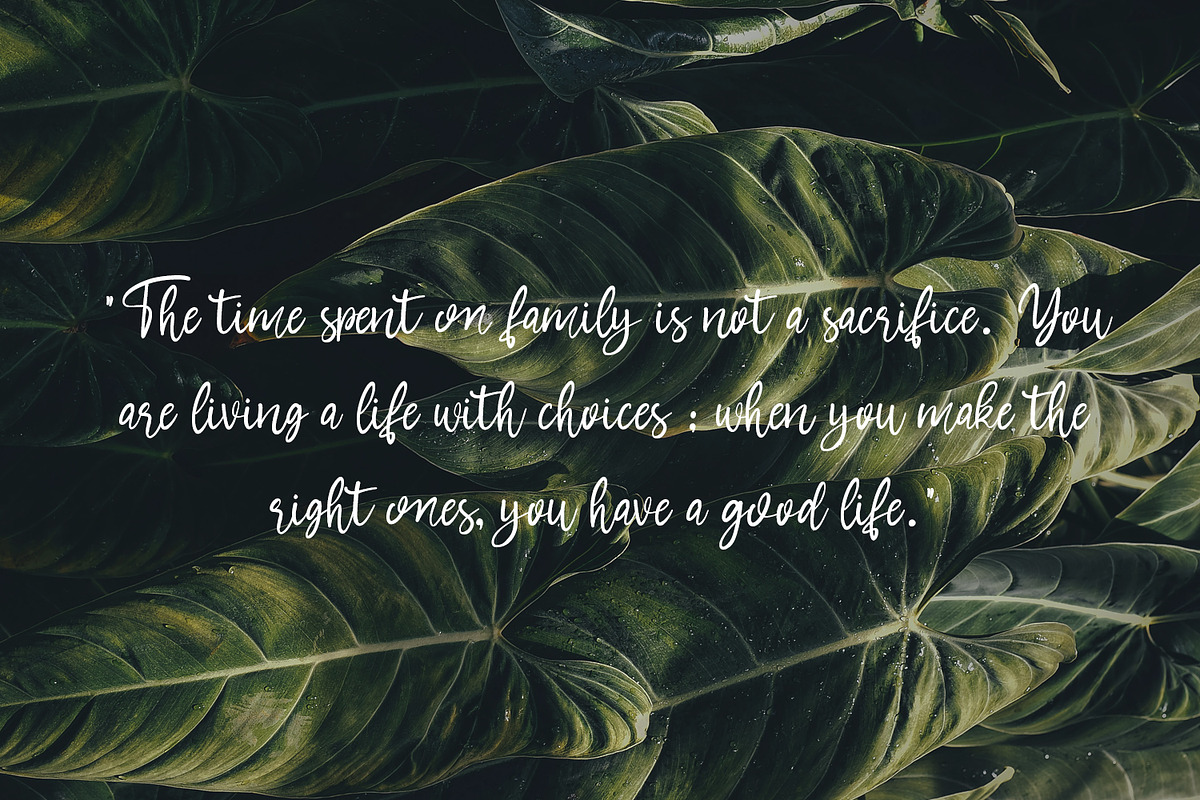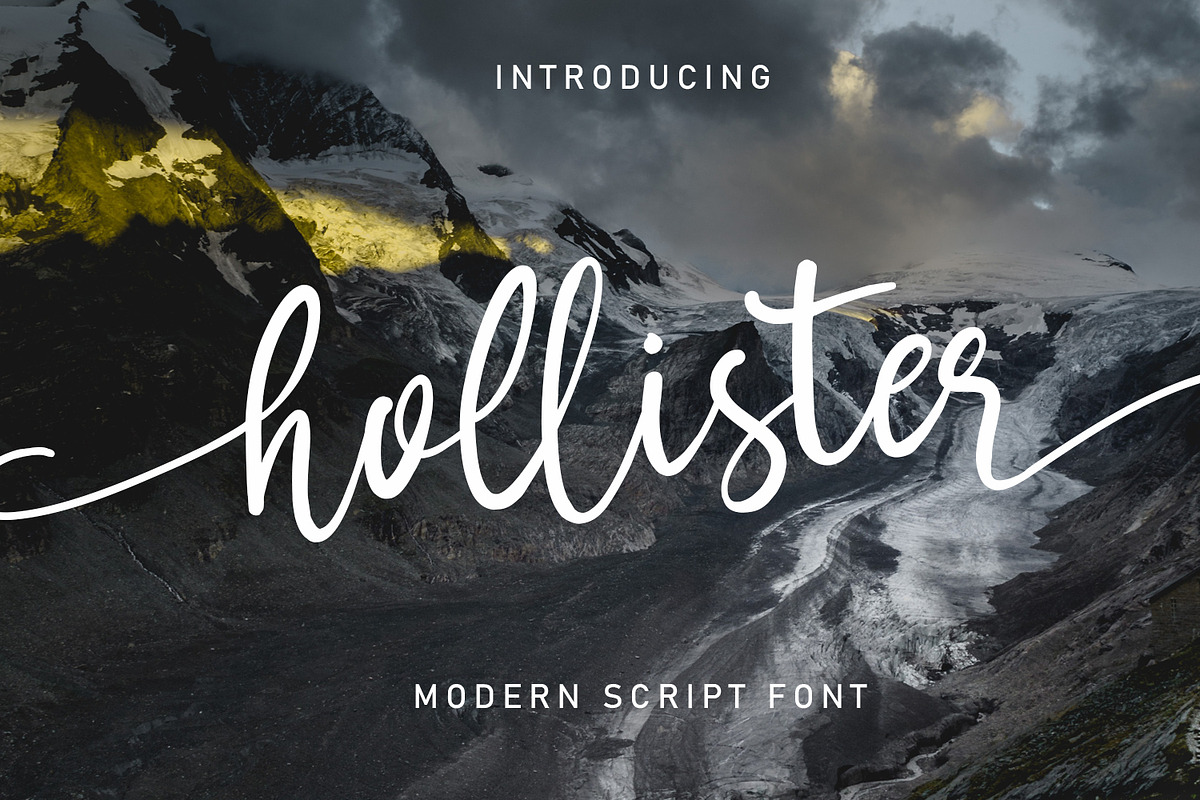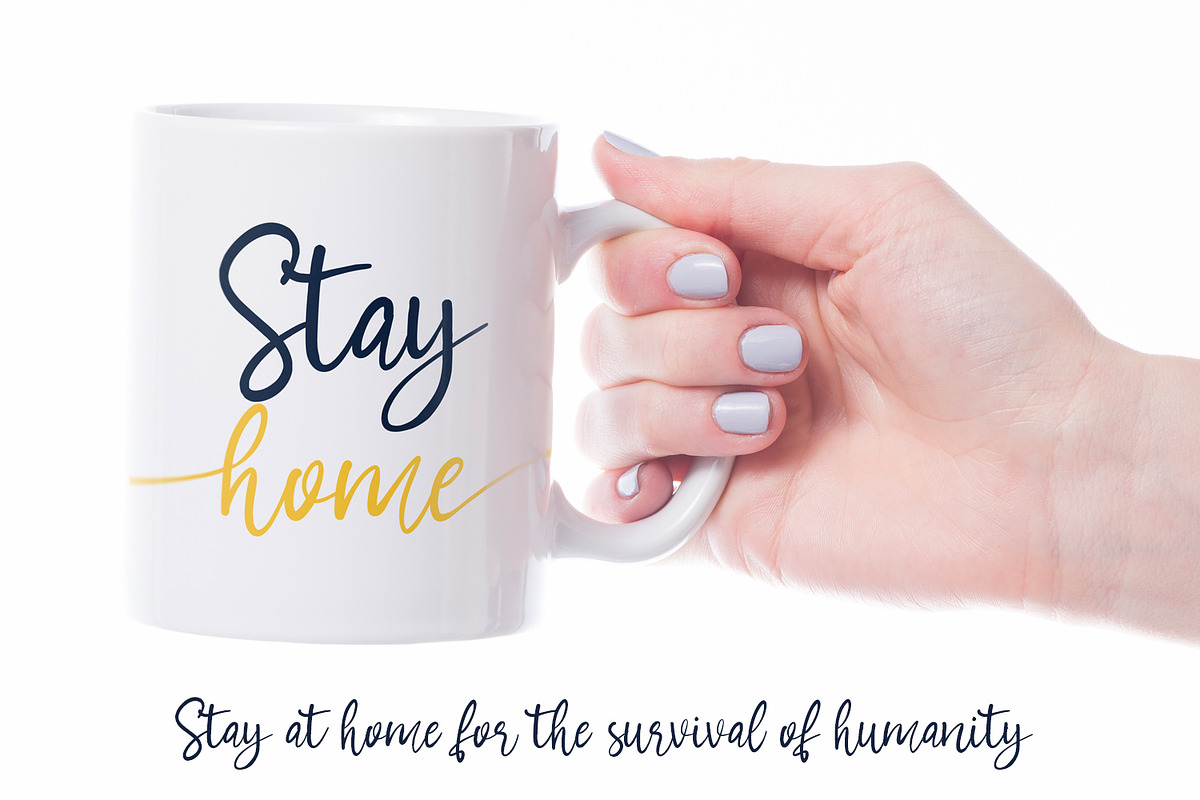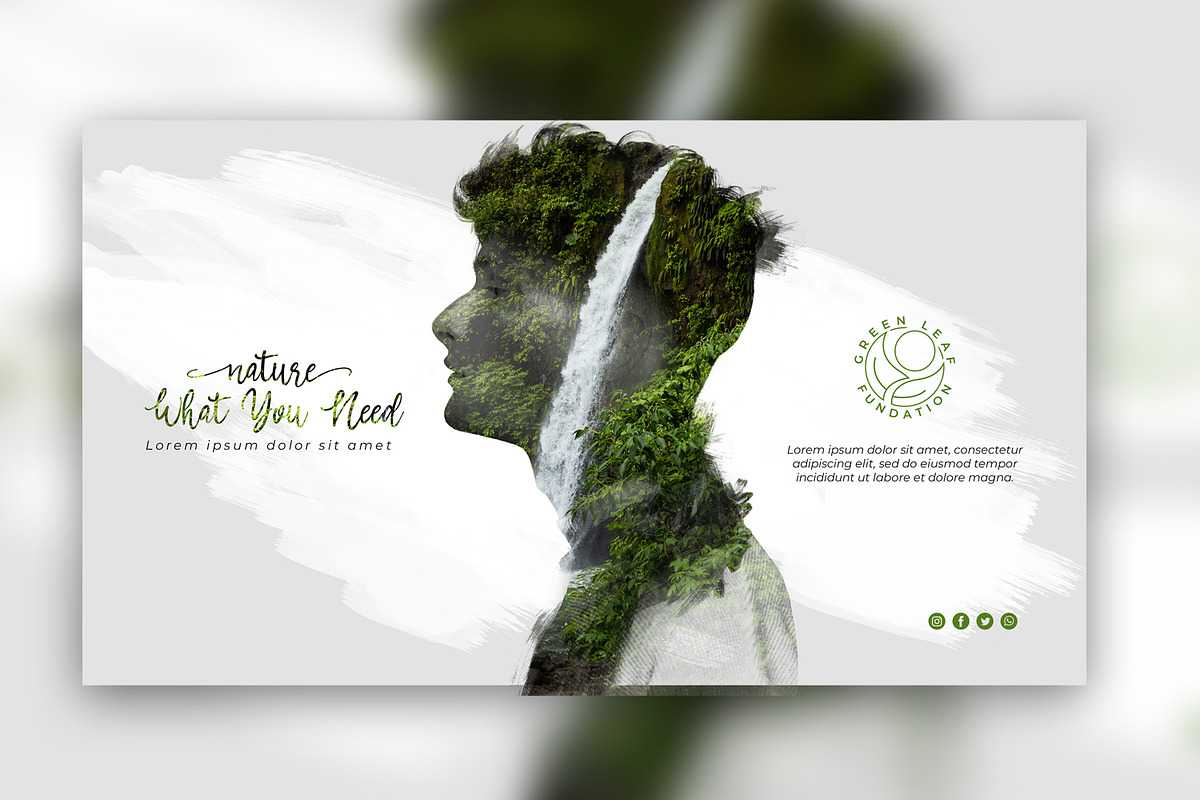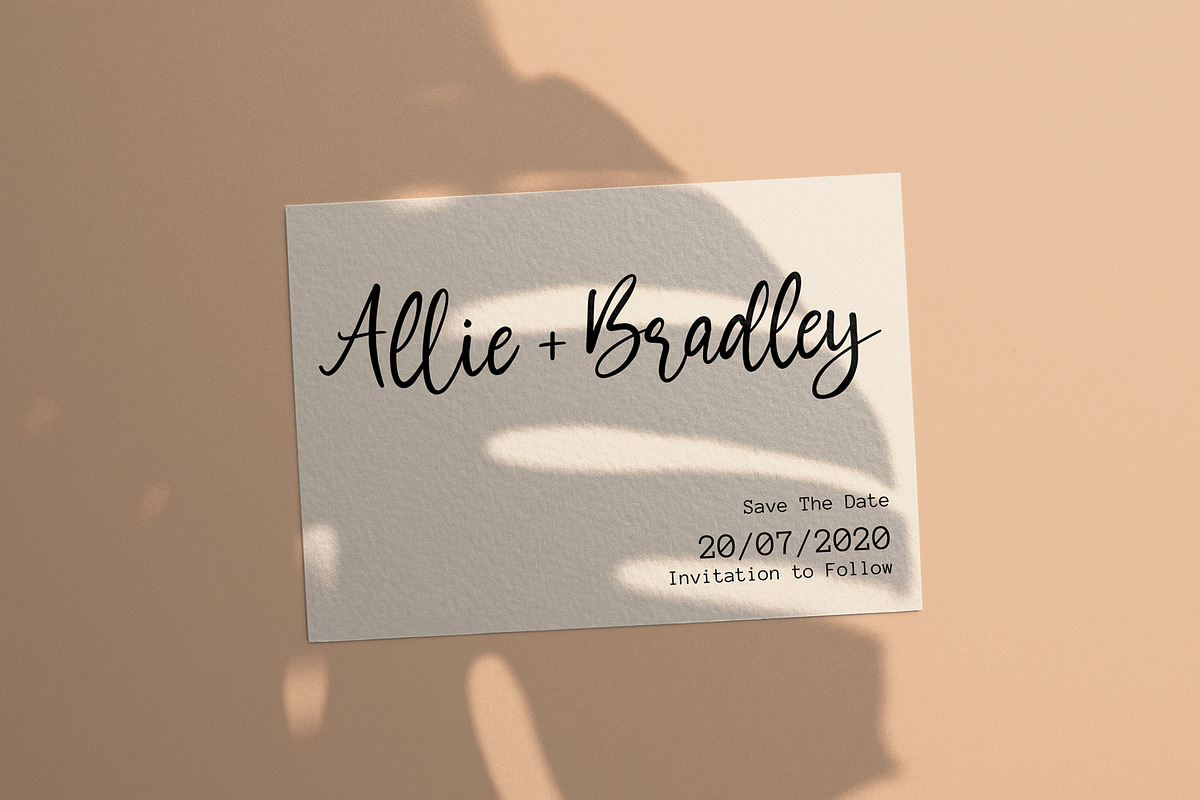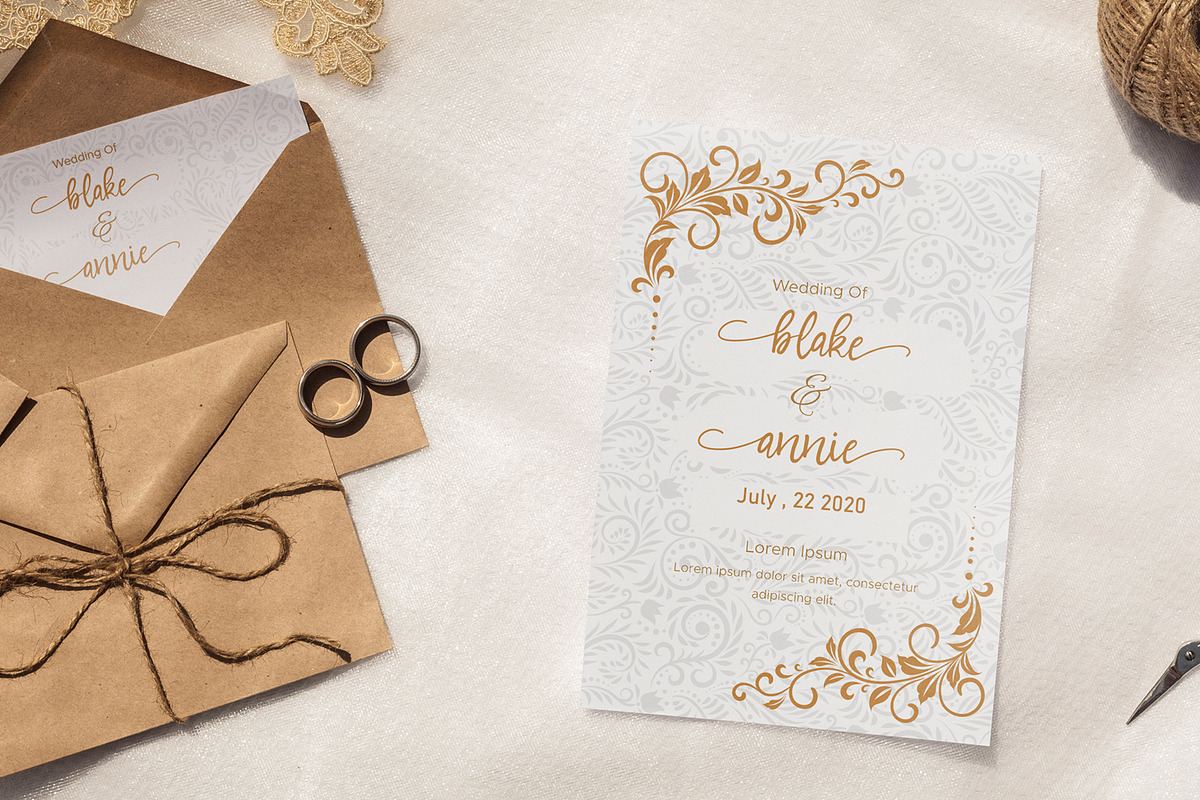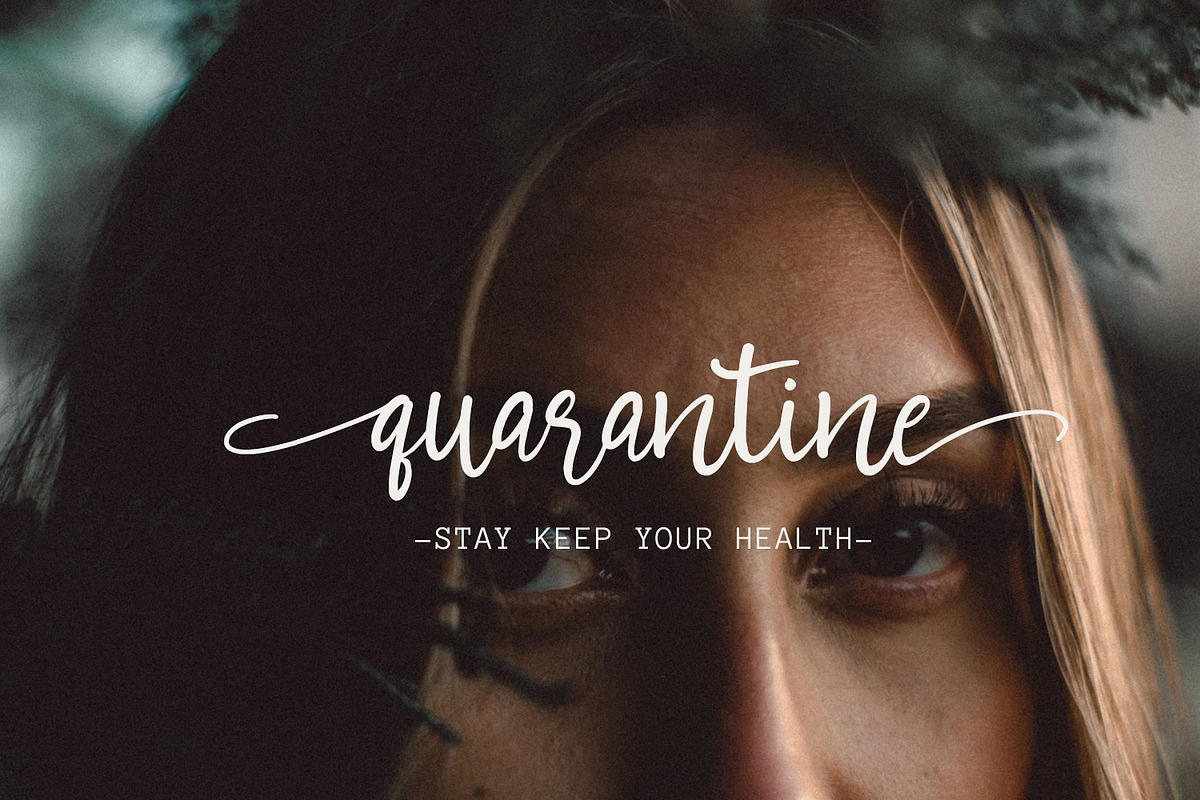
Hollister - Modern Script Font
Hollister font is aModern Script font created with a natural brush. This font is very beautiful when combined with era now design concepts ,hollister came with opentype features such stylistic alternates, stylistic sets & ligatures good for logotype, poster, badge, book cover, tshirt design, packaging and any more.
Hollister - Modern Script Font by Arendxstudio fits naturally into Branding, posters, packaging, typography.